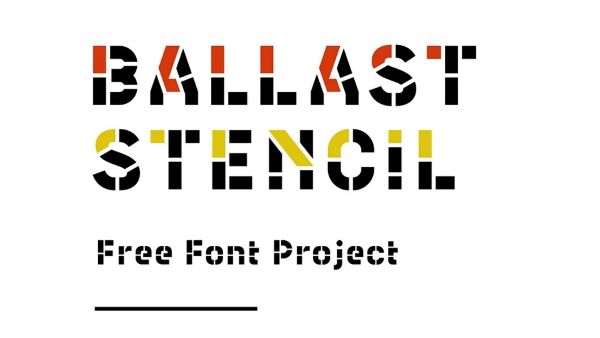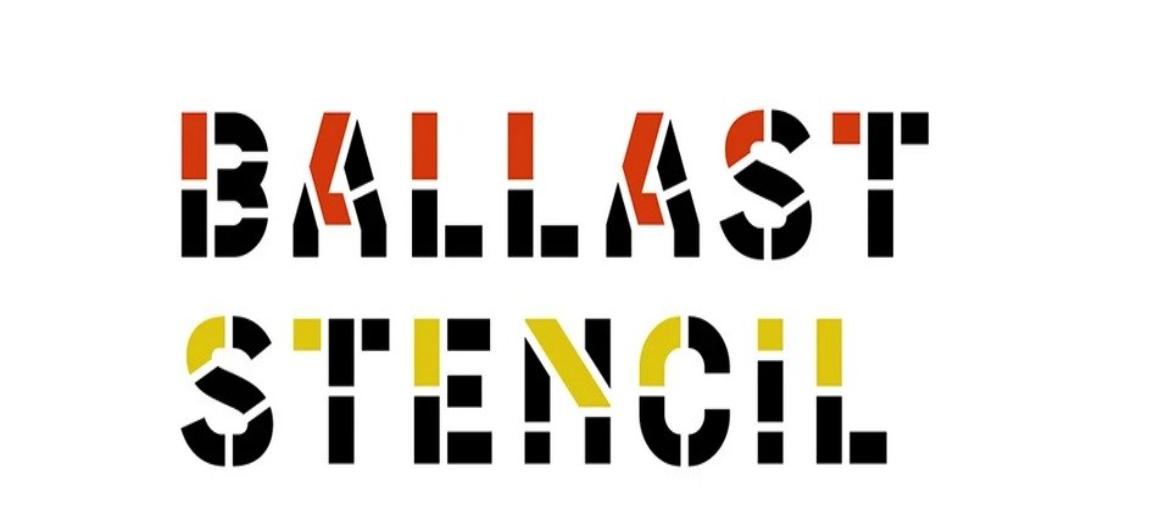
Ballast Font
Ballast Stencil by Wataru Haraguchi is a free stencil typeface with a clean, purposeful aesthetic rooted in industrial and graphic design traditions. Its stencil cuts are handled with restraint — precise interruptions that maintain legibility while giving the letterforms their characteristic visual rhythm. The result sits comfortably between functional and expressive, making it a strong choice for editorial design, packaging, posters, wayfinding, and any project that wants the raw authority of stencil lettering without sacrificing typographic refinement. Free for personal and commercial use.